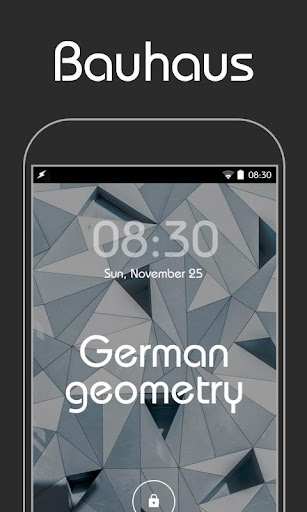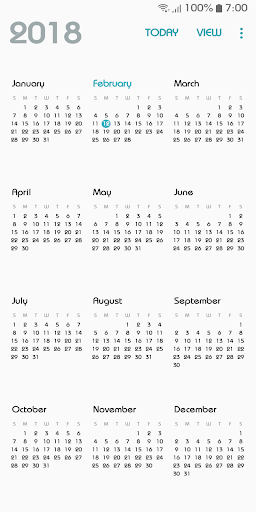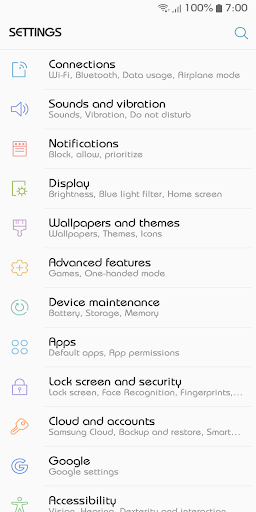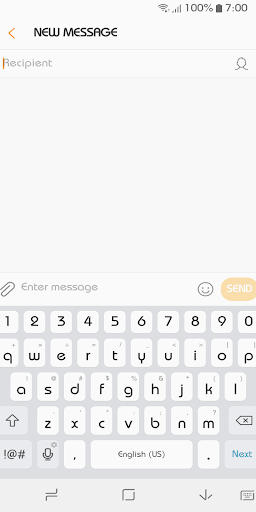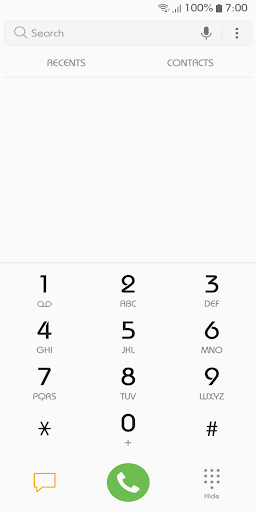
In terms of personality, Bauhaus™ isn’t shy—it’s loud, unmistakable, and bursting with retro charm. If your device needs a hint of cool, throwback swagger, Bauhaus will let you lead with style.
Pan-European character set
supports Western, Central and Eastern European languages.